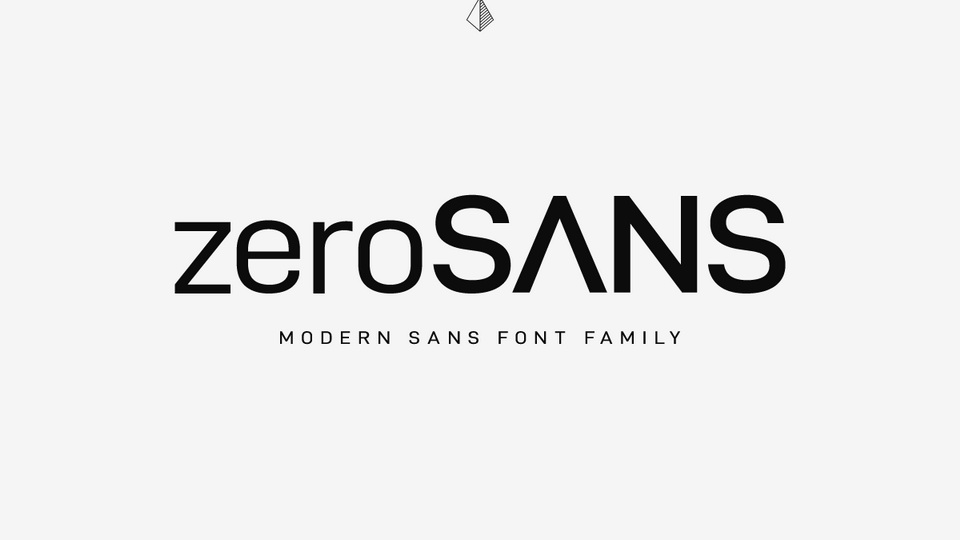
Feb 8, 2025Sans SerifZero Sans Font ZERO is a geometric sans typeface inspired by strong and powerful character. Bold and sharp with smooth textures. Suitable with your business and modern company. Font DetailsDesigned by: PrismLABWebsiteLicense: Free for personal use Download Zero Sans FontFile size: 17.11 KBCreated: February 16, 2025Updated: February 16, 2025 Download Explore similar fonts Uni Sans Font Family Horiva Sans Font Family Hirro Sans Font Family Noto Sans Font Family Strichpunkt Sans Font Family Biotrip Sans Font # Basic# Contemporary# Geometric# Modern More fonts by PrismLABSandbox Font